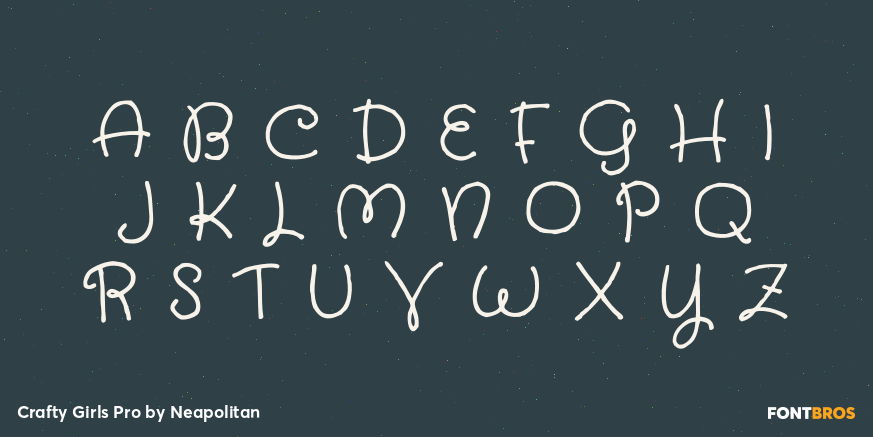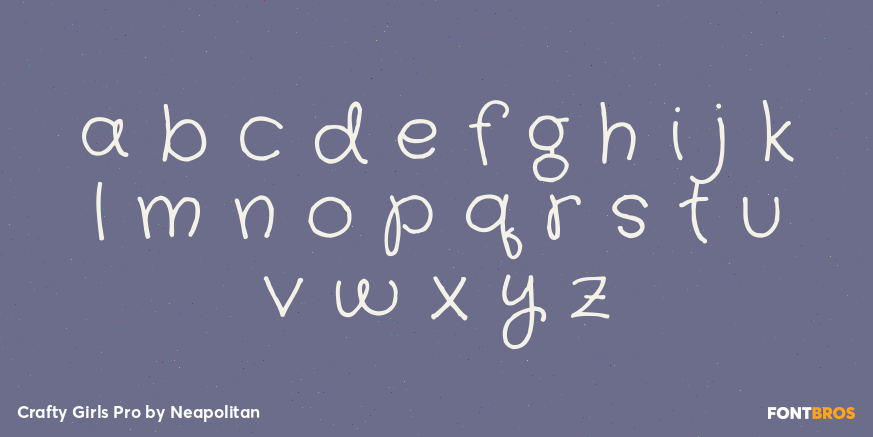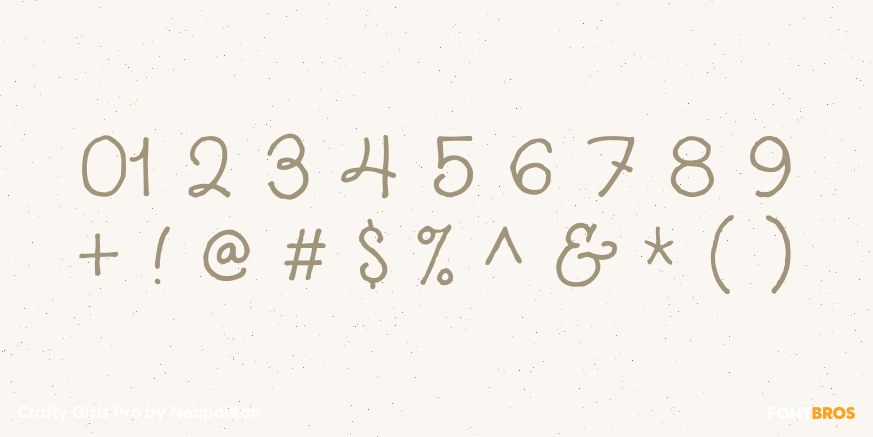
Crafty Girls Pro
Inspired by crochet hooks, yarn, grandma's button box, thread, glitter and crafty girls hands everywhere! This delightfully playful casual handwriting script font was hand drawn by the Tart Workshop's own resident lettering artist and crafty guru Crystal Kluge and makes the perfect compliment to all your projects! Use it in your very best creative projects, then blog about them in the same font!
The Pro version has been expanded and enhanced with more characters, dynamic OpenType ligatures and more!